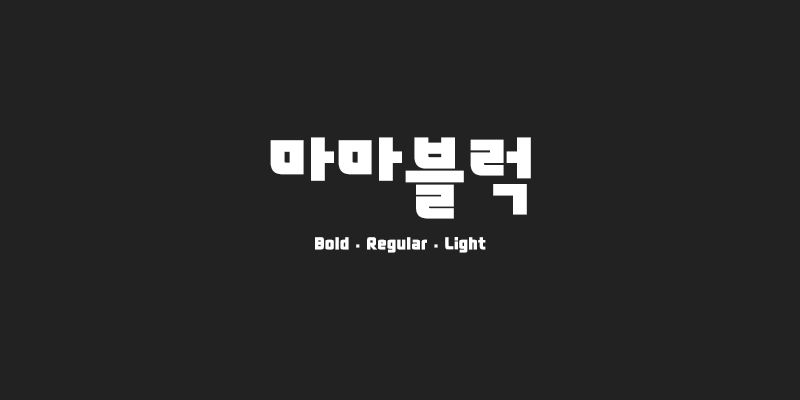
210 Mamablock Font Free Download is a quirky and bold display font that brings a fun, retro-inspired edge to your creative projects. With its chunky, geometric shapes and playful character, this font is perfect for headlines, posters, children's content, logos, and any design that needs a bit of extra personality. It stands out in both print and digital formats, offering a unique voice that's hard to ignore.
Designed with creativity in mind, 210 Mamablock offers a vintage flair while still feeling fresh and modern. The blocky letterforms are highly legible and create a strong visual impact, making it a fantastic choice for designs that aim to be both bold and approachable. Whether you're working on a branding project or a fun personal poster, this font adds an instant touch of character.